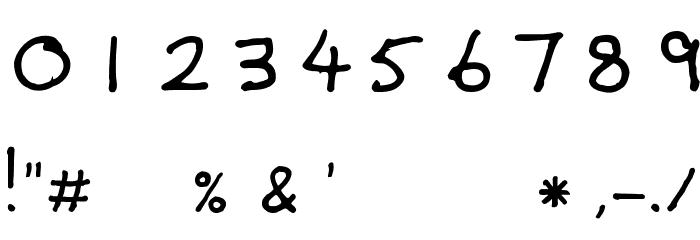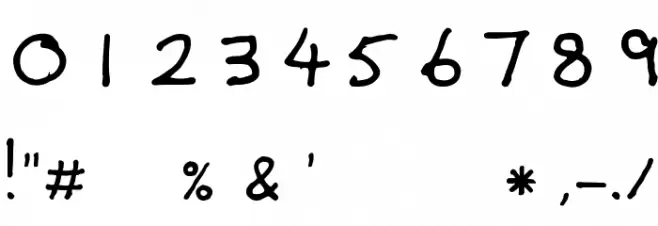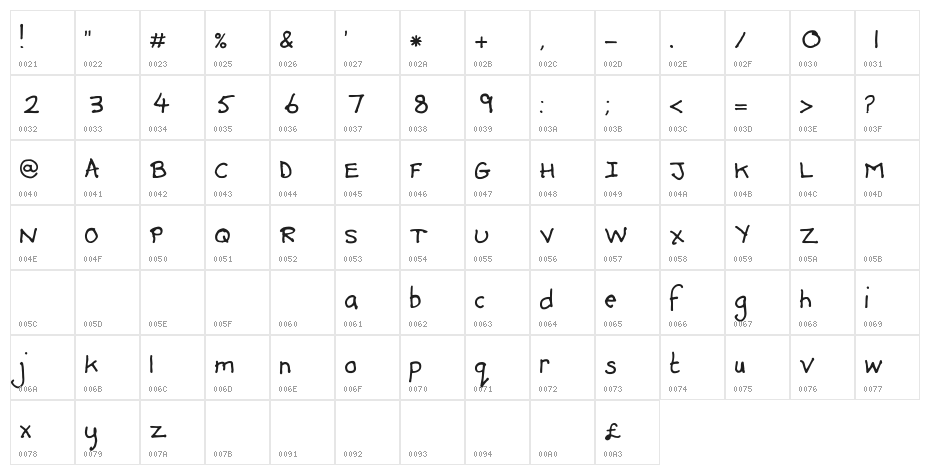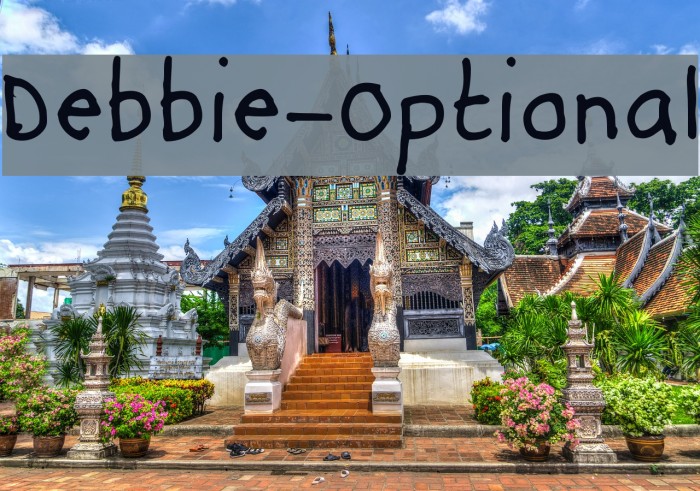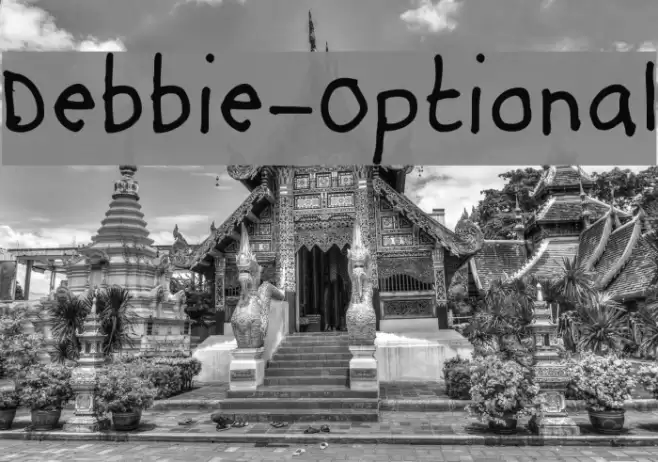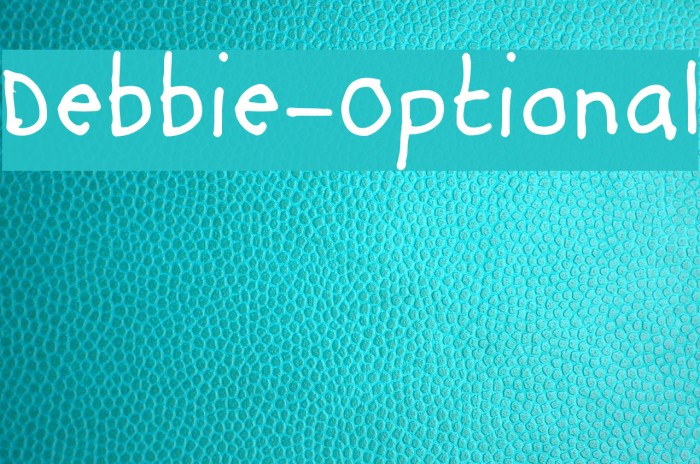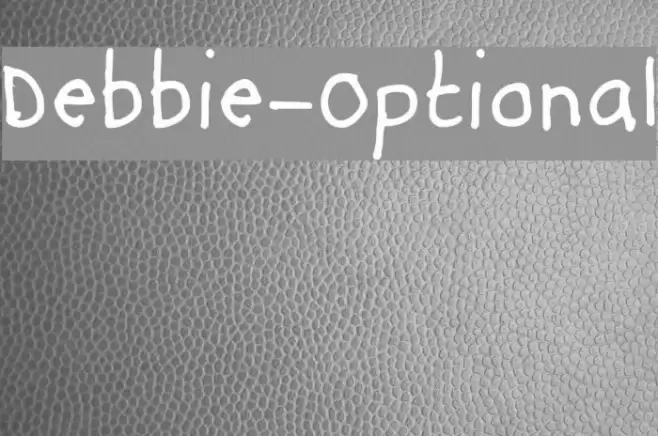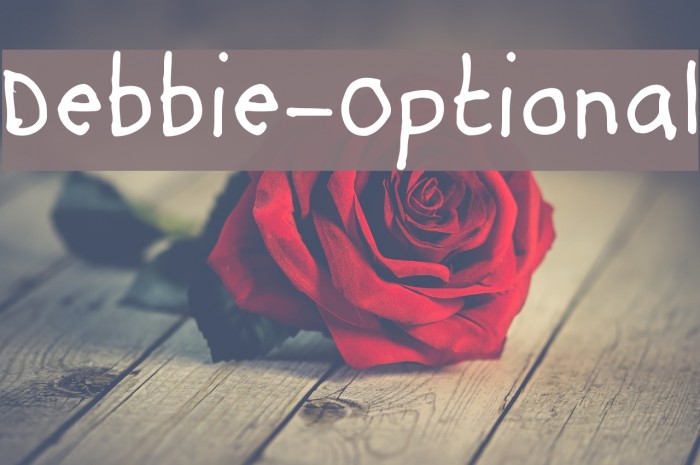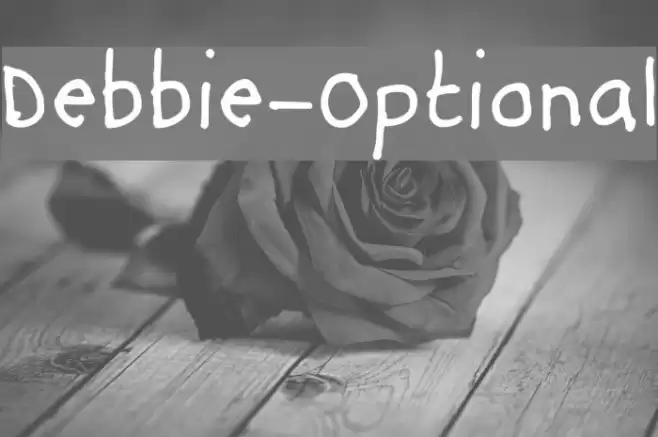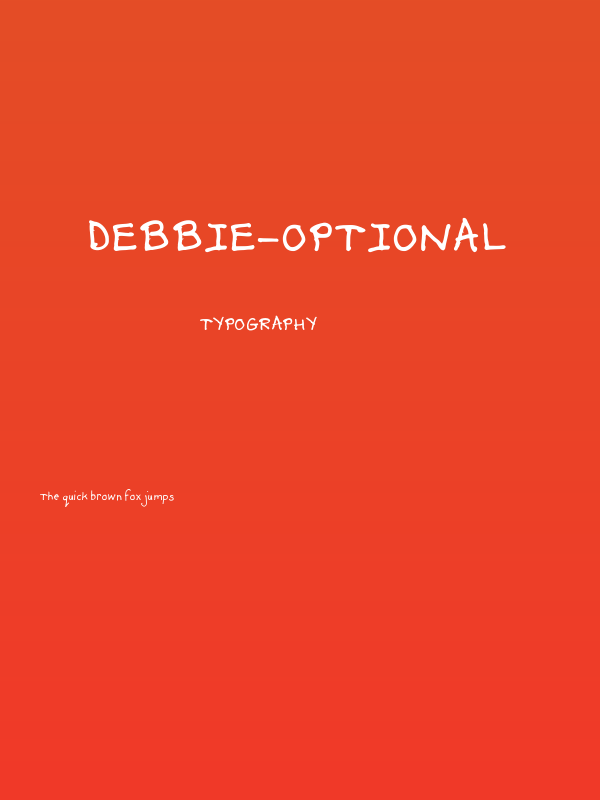
Debbie-Optional Font
This font exhibits a playful and casual handwritten style, characterized by its irregular and organic letterforms. The strokes are uneven, giving it a natural and authentic feel, reminiscent of handwriting with a marker or brush. The uppercase and lowercase letters maintain a consistent style, with rounded edges and slight variations in height and width, adding to its charm. The numerals and special characters follow the same informal aesthetic, ensuring a cohesive look across all text. This font's unique personality makes it stand out, perfect for projects that require a touch of individuality and warmth.